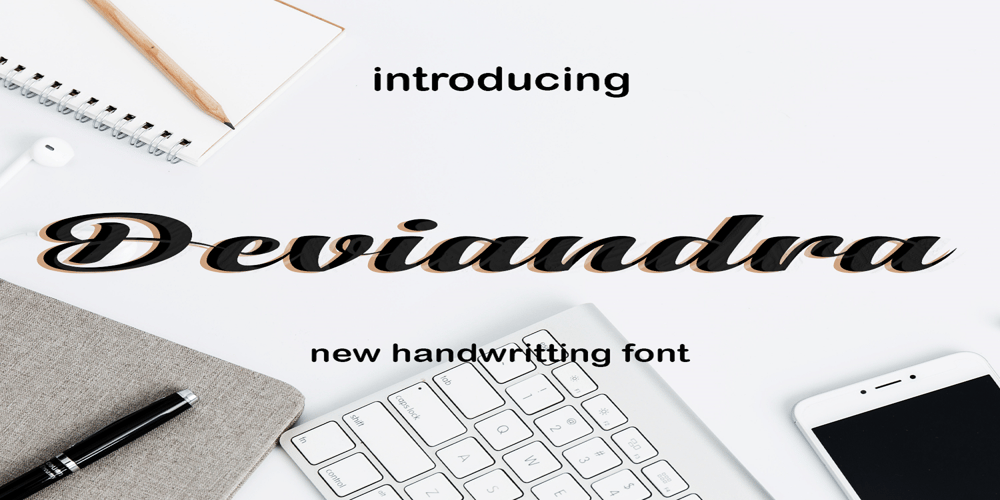
Deviandra Font Family was designed by WARNO – and published by Diyastudio. Deviandra contains 1 styles and family package options. Deviandra is a free-flowing script font created for packaging products, invitation cards, flyers, mockups, event posters, and anything else that requires high-quality vibes. It has a beautiful and balanced character, that fits well with the large design pool.